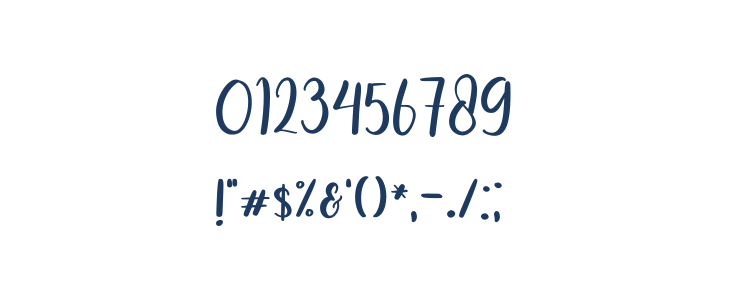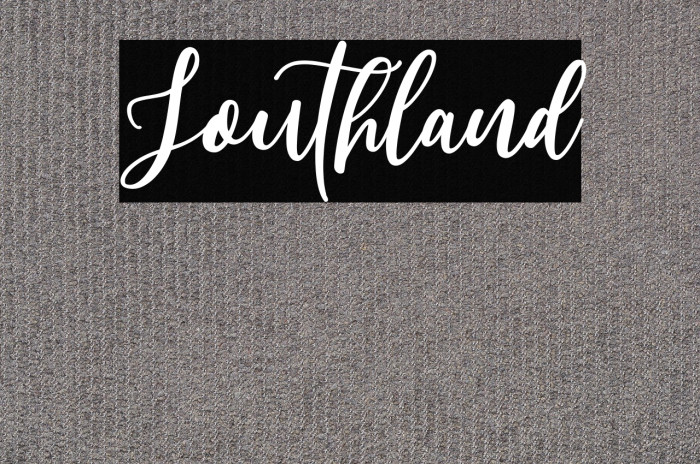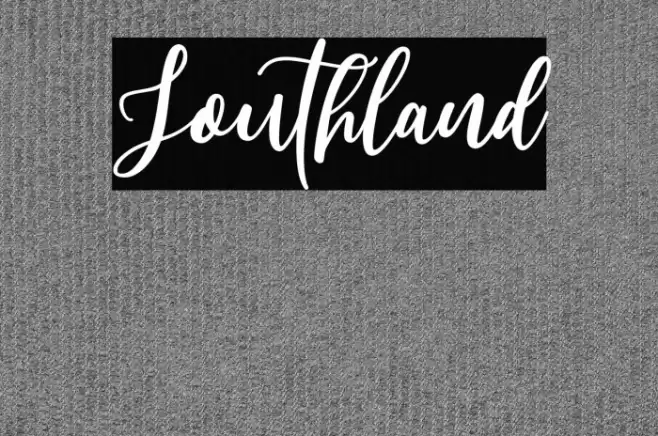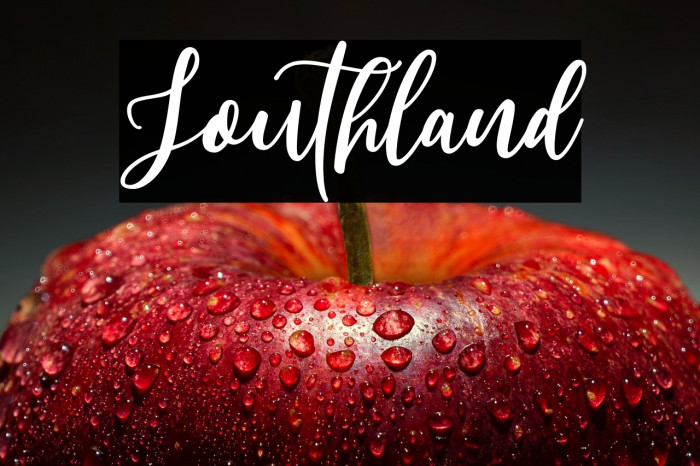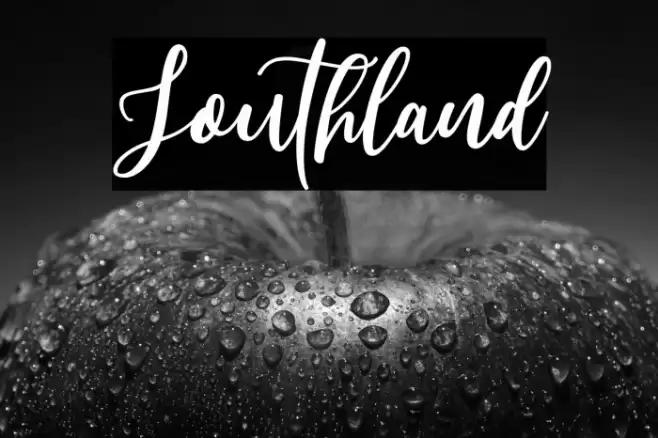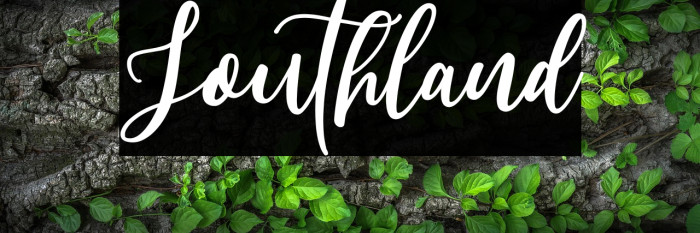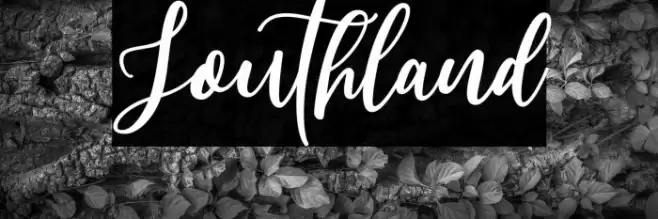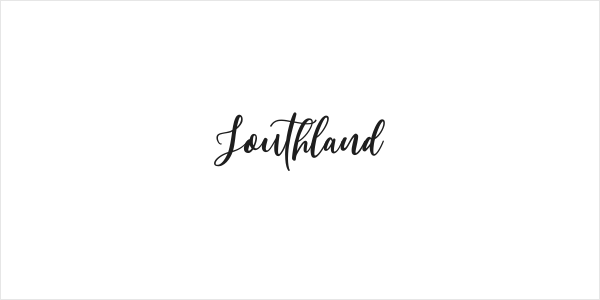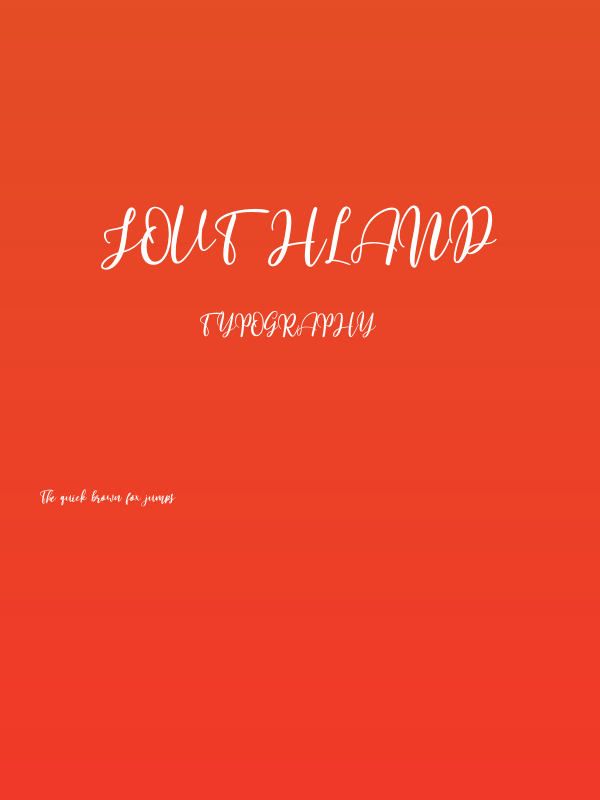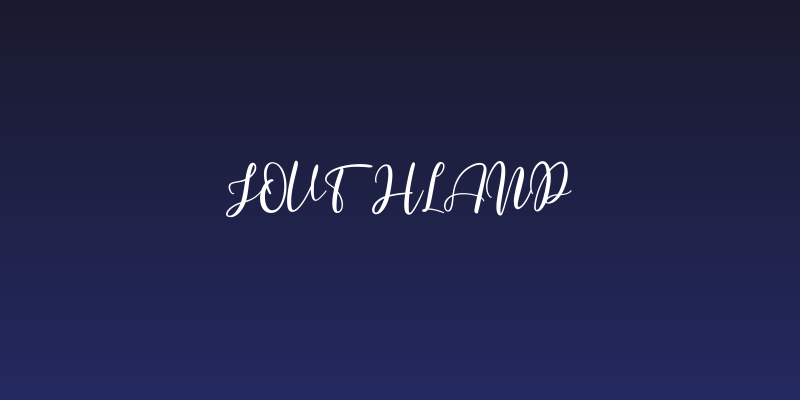
Southland Font
Southland Description
This font features a flowing, cursive style that exudes elegance and sophistication. The uppercase letters are tall and graceful, with sweeping curves and loops that give them a sense of movement and fluidity. The lowercase letters maintain this fluidity, with a slightly more compact form that enhances readability while retaining the font's overall decorative appeal. The numerals are bold and clear, complementing the letters with their rounded forms. Special characters are designed with the same attention to detail, ensuring consistency across all glyphs. This font is perfect for projects that require a touch of elegance and charm, such as wedding invitations, greeting cards, and upscale branding.
| Use Case | Headlines, Invitations, Branding |
| Proposed Projects | Ideal for wedding invitations, greeting cards, upscale branding, and decorative signage. |